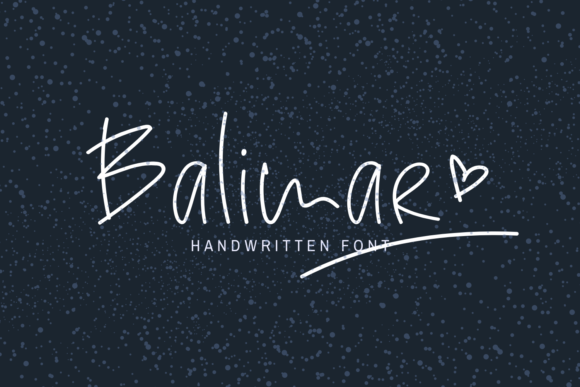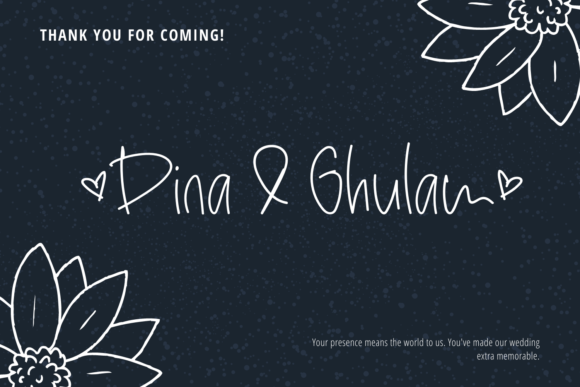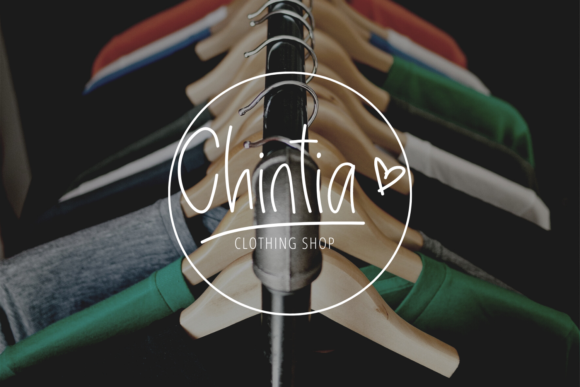
About Balimar Font
Balimar is an incredibly distinct, delicate and timeless handwritten font. Fall in love with its incredibly versatile style and use it to create gorgeous wedding invitations, beautiful stationary art, eye-catching social media posts, and much more!